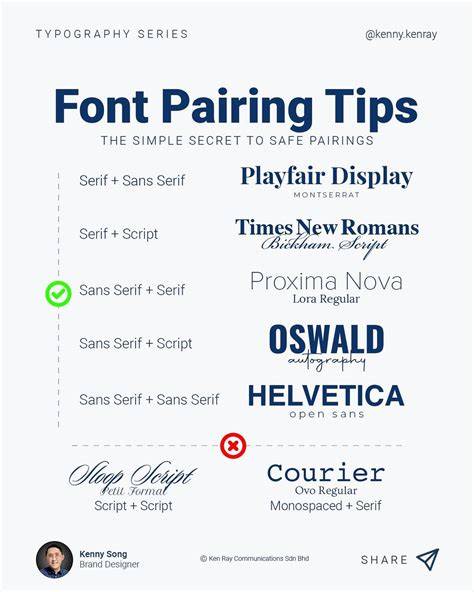
Create Perfect Font Combinations with Adobe's Font Pairing Tool for Seamless Design
Find the perfect font combinations for your design with Adobe's Font Pairing Tool. Pair fonts easily and create stunning visuals in no time.
Are you tired of scrolling through endless font options, trying to find the perfect pairing for your design project? Look no further than the Adobe Font Pairing Tool. This innovative tool takes the guesswork out of font selection and offers a seamless solution for designers of all levels. From elegant serif fonts to playful sans-serif options, the Adobe Font Pairing Tool has it all.
Transitioning between different fonts can be a daunting task, but with this tool, you can easily compare and contrast different pairs to find the perfect match. Whether you're designing a website, creating marketing materials, or crafting a beautiful logo, the Adobe Font Pairing Tool is a game-changer. Say goodbye to hours spent searching for the right combination and hello to a more efficient and effective design process.
So why wait? Give the Adobe Font Pairing Tool a try and see just how much time and stress it can save you. Your designs will thank you!
The Importance of Font Pairing
Choosing the right fonts for your design project can make or break its success. Fonts can convey different emotions and can help establish your brand identity. However, choosing the right fonts to pair together can be a daunting task, especially if you're not a graphic designer. That's where Adobe's Font Pairing Tool comes in.
What is Adobe's Font Pairing Tool?
Adobe's Font Pairing Tool is a website that helps designers find complementary font combinations. The tool features a curated selection of fonts from Adobe's Typekit library, which includes both free and paid options. The website is easy to use and provides several options for customizing your font choices.
How to Use the Font Pairing Tool
To use the tool, simply visit the website and select a font from the dropdown menu. The tool will automatically generate a list of complementary fonts that pair well with your selection. You can further refine your search by selecting specific font properties, such as serif or sans-serif, weight, and style.
Customizing Your Font Pairing
Once you've found a font pairing that you like, you can customize it further by adjusting the font size, line height, and color. The tool also allows you to preview your font pairing in different contexts, such as headings, subheadings, and body text.
Why Use Adobe's Font Pairing Tool?
Using Adobe's Font Pairing Tool can save you time and effort when trying to find the right font combinations. The tool takes the guesswork out of font pairing and provides you with a curated selection of complementary fonts. Additionally, using complementary fonts can help establish your brand identity and make your design project more visually appealing.
Examples of Font Pairings
Here are some examples of font pairings that you can create using Adobe's Font Pairing Tool:
Montserrat and Merriweather
The combination of the sans-serif Montserrat font with the serif Merriweather font creates a modern and sophisticated look. This pairing is great for headings, subheadings, and body text.
Source Sans Pro and Open Sans
The combination of the sans-serif Source Sans Pro font with the Open Sans font creates a clean and professional look. This pairing is great for headings and body text.
Roboto and Lora
The combination of the sans-serif Roboto font with the serif Lora font creates a modern and elegant look. This pairing is great for headings, subheadings, and body text.
Conclusion
Adobe's Font Pairing Tool is a valuable resource for designers looking to find complementary font combinations. The tool takes the guesswork out of font pairing and provides you with a curated selection of fonts that work well together. By using complementary fonts, you can establish your brand identity and make your design project more visually appealing. So next time you're struggling to find the right font pairing, give Adobe's Font Pairing Tool a try!
Discover the Possibilities: Introducing Adobe Font Pairing Tool
Are you tired of scrolling through endless font options, unsure of which ones will work well together? Do you find yourself spending hours trying to find the perfect combination for your designs? If so, then it's time to rejoice because Adobe has introduced its new Font Pairing Tool. This innovative tool makes font selection hassle-free, allowing designers to create perfect harmony and take their design game to the next level.Designers Rejoice: Say Hello to Hassle-Free Font Selection
Gone are the days of struggling to find the right font pairing. With Adobe Font Pairing Tool, designers can effortlessly find the perfect font combo that truly represents their brand. No more wasted time and energy spent on scrolling through countless options with no end in sight. Simply enter your desired font and let the tool work its magic.Create Perfect Harmony: Mix and Match Fonts with Ease
People Also Ask About Adobe Font Pairing Tool1. What is the Adobe Font Pairing Tool?The Adobe Font Pairing Tool is a web-based application that helps designers find the perfect font pairing for their projects. It offers a wide range of fonts and allows users to experiment with different combinations until they find the perfect match.2. How do I use the Adobe Font Pairing Tool?Using the Adobe Font Pairing Tool is very simple. Just visit the website, select the type of project you're working on (e.g., website, print, etc.), choose a font category (e.g., serif, sans-serif, display, etc.), and start experimenting with different font combinations.3. Can I download the fonts from the Adobe Font Pairing Tool?No, the Adobe Font Pairing Tool does not allow you to download the fonts directly from the website. However, it does provide you with links to the Adobe Fonts website, where you can purchase and download the fonts you need.4. Is the Adobe Font Pairing Tool free to use?Yes, the Adobe Font Pairing Tool is completely free to use. You don't need an Adobe account or any special software to access it. All you need is a web browser and an internet connection.5. Can I save my font combinations on the Adobe Font Pairing Tool?Yes, you can save your font combinations on the Adobe Font Pairing Tool by clicking on the Save button. This will generate a unique URL that you can bookmark or share with others. You can also come back to your saved combinations later and continue experimenting.